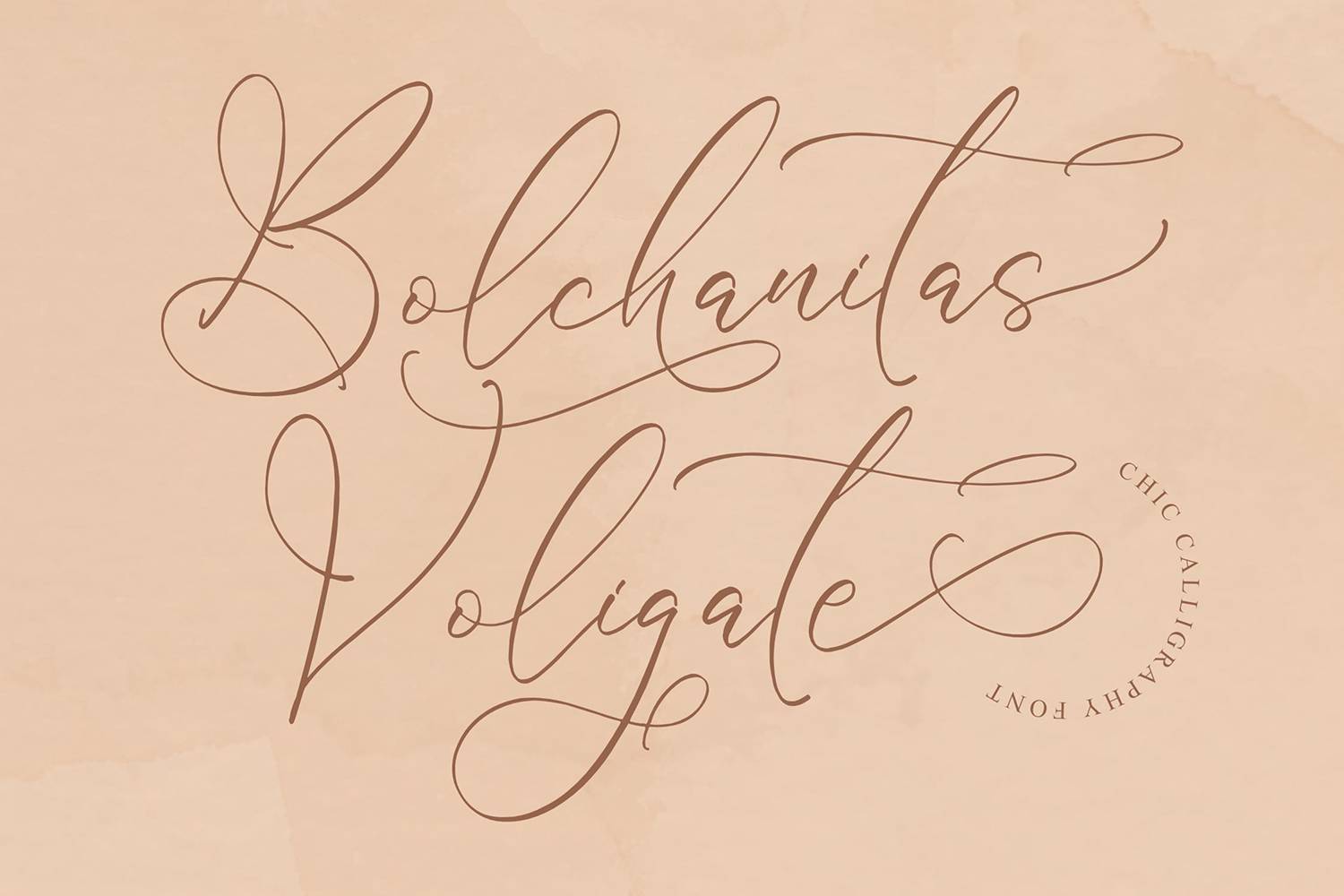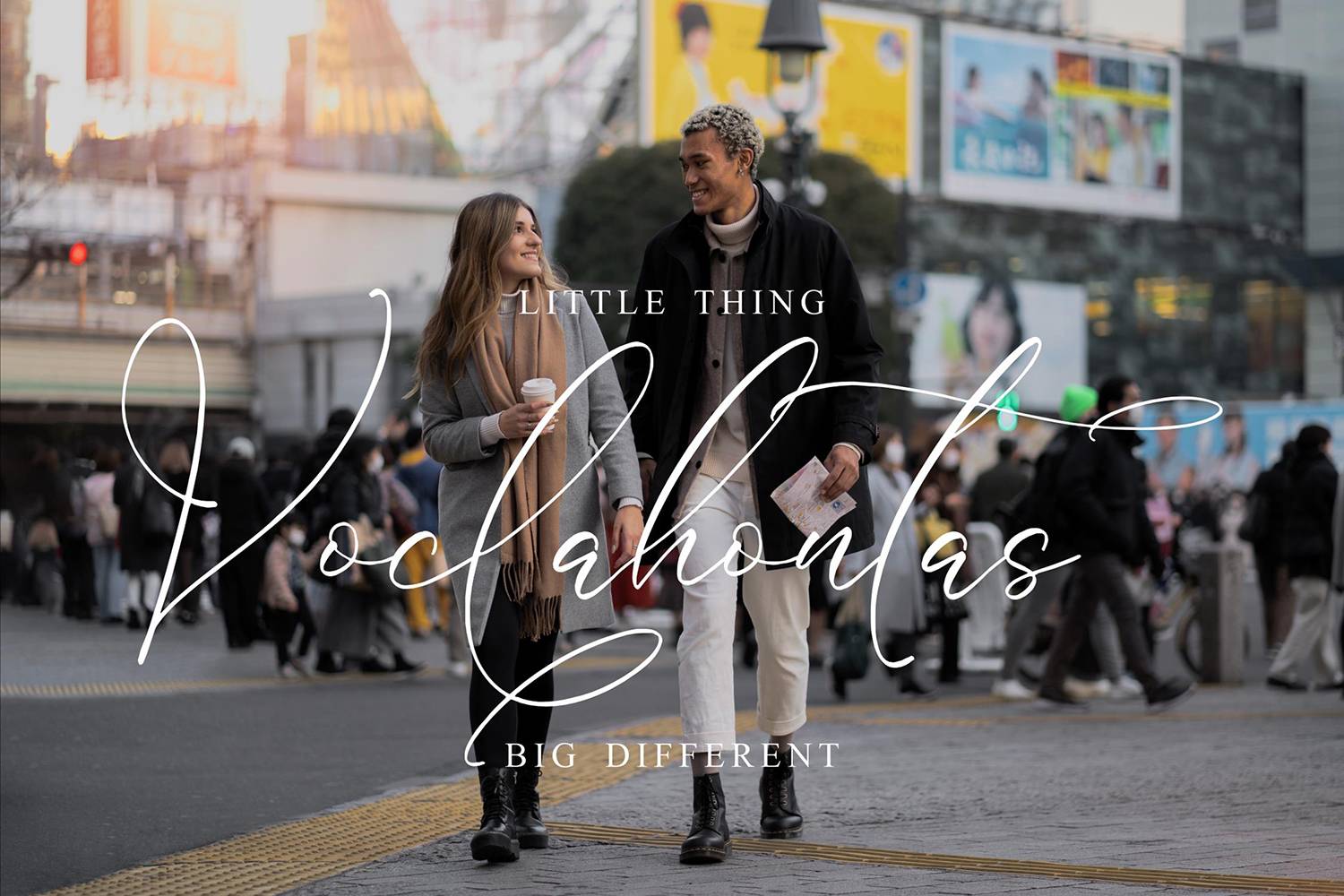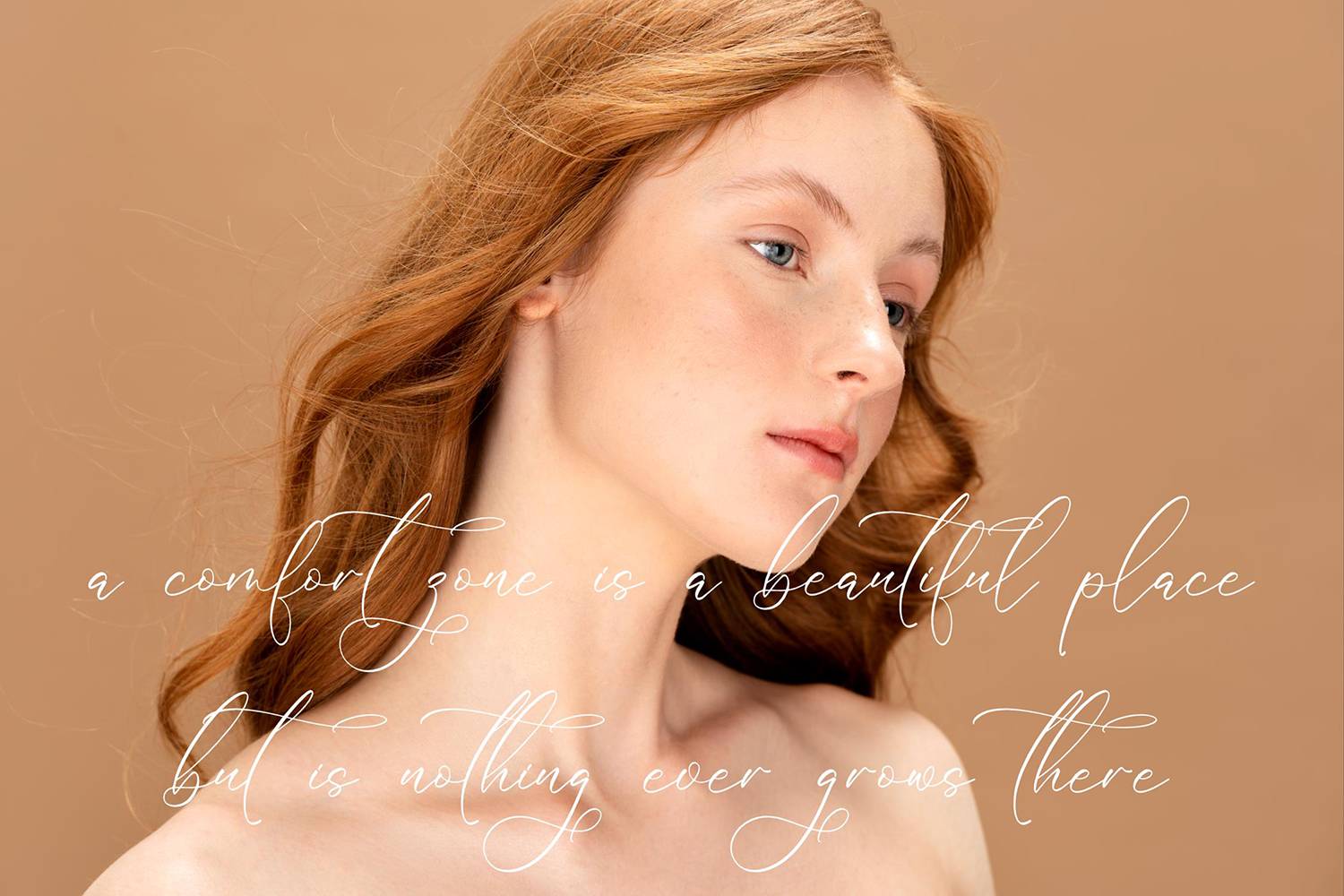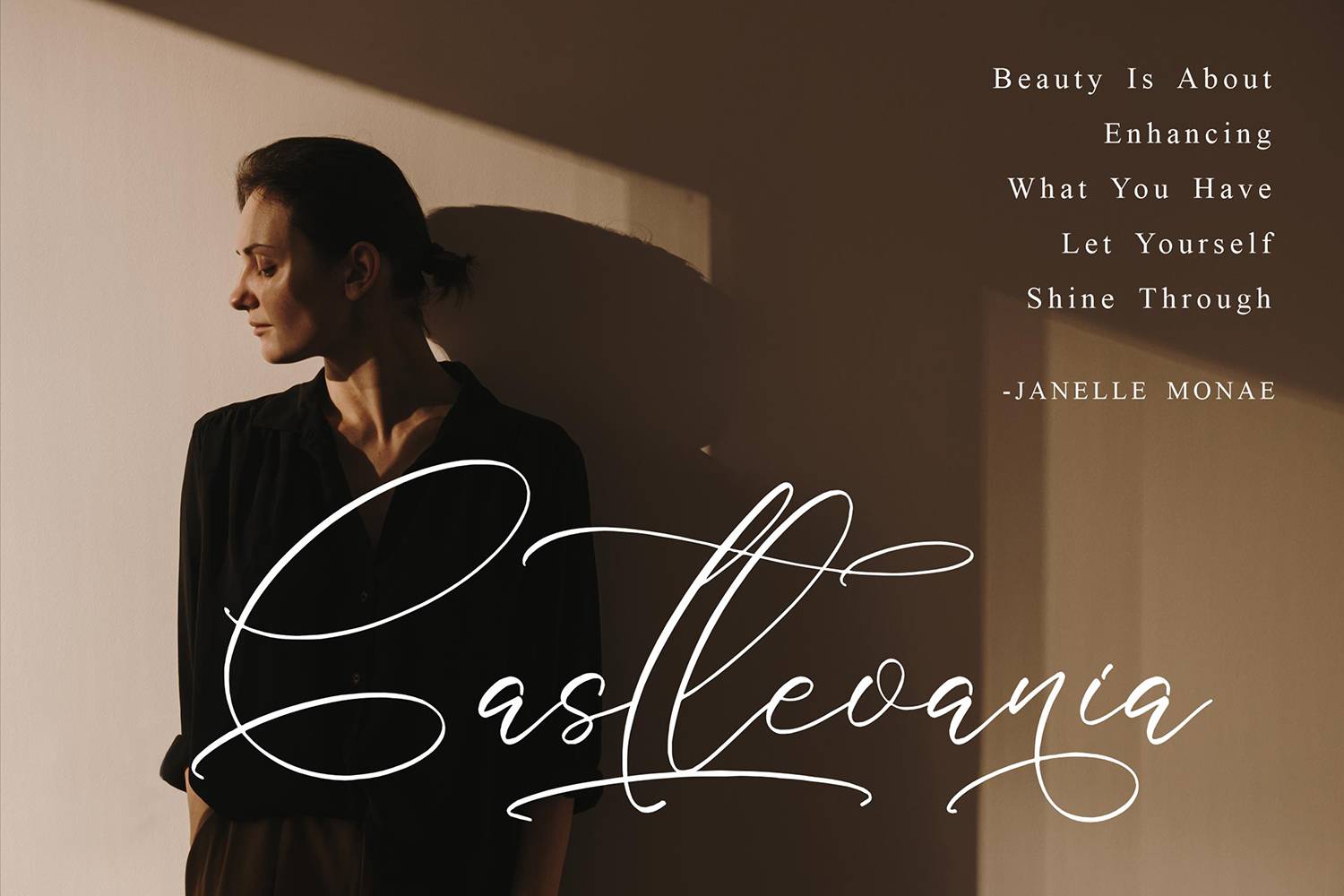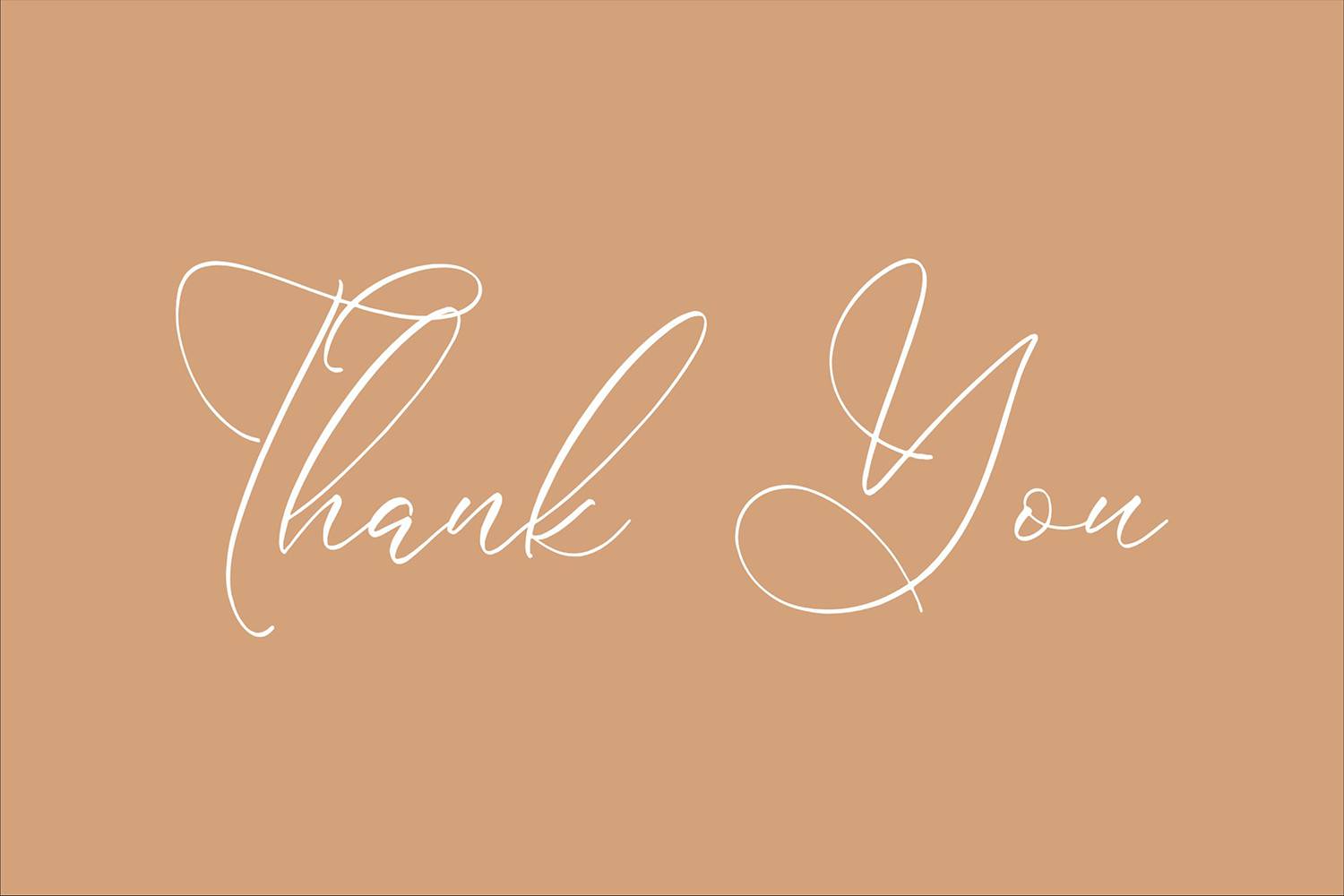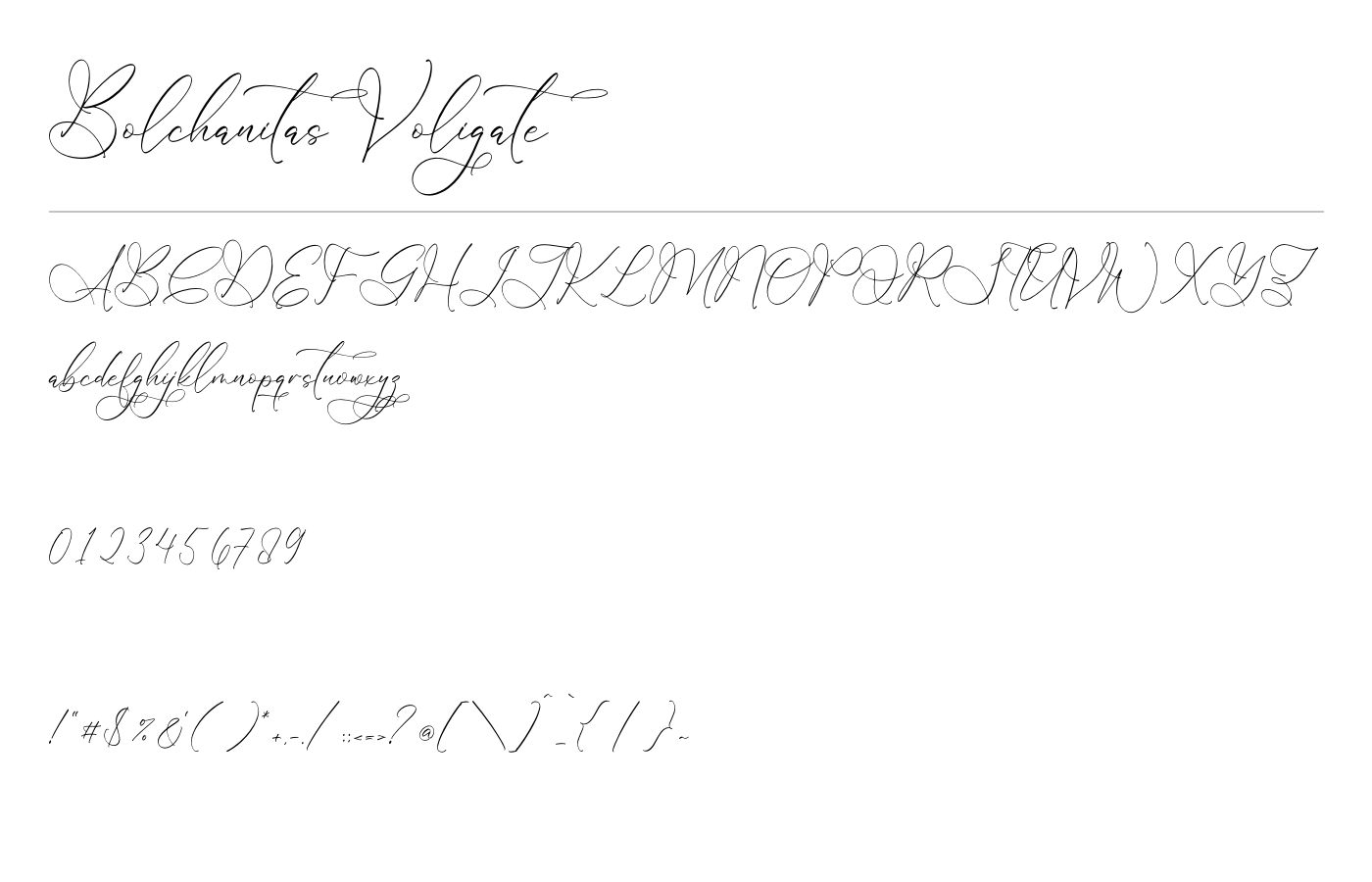
Bolchanitas Voligate is a delicate and elegant script font characterized by its fine, flowing lines and intricate swashes that give it a graceful, handwritten feel. With its slender strokes and ornate details, this font works beautifully for sophisticated branding, wedding invitations, and luxury packaging where a romantic and refined look is desired. Its light weight and airy style make it suitable mainly for decorative use in headlines or short phrases rather than body text.
Bolchanitas Voligate Font
About Bolchanitas Voligate Font
| Font family | Bolchanitas Voligate Font |